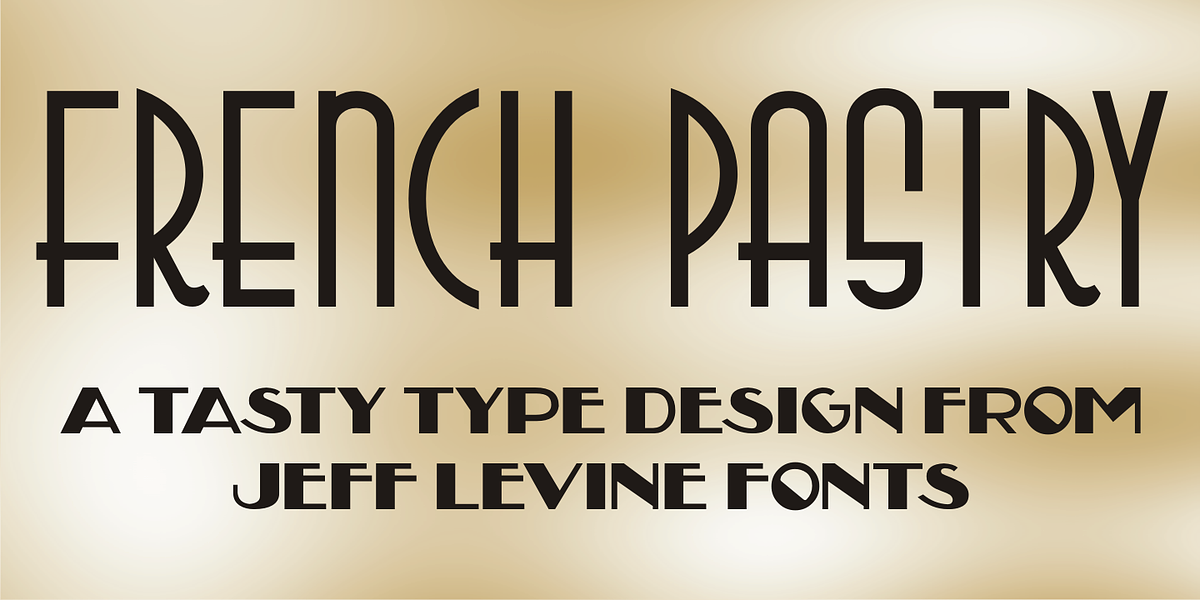
French Pastry JNL
A little ditty from France circa the 1940s called “J'ai Rêvé Dans Tes Bras” (which loosely translated means “I’ll Dream in Your Arms”) offered up its title hand lettered in an interesting Art Deco sans.
This formed the basis for French Pastry JNL, a tasty typographical tidbit further preserving the wide selection of lettering styles hand-crafted for popular sheet music of past decades.